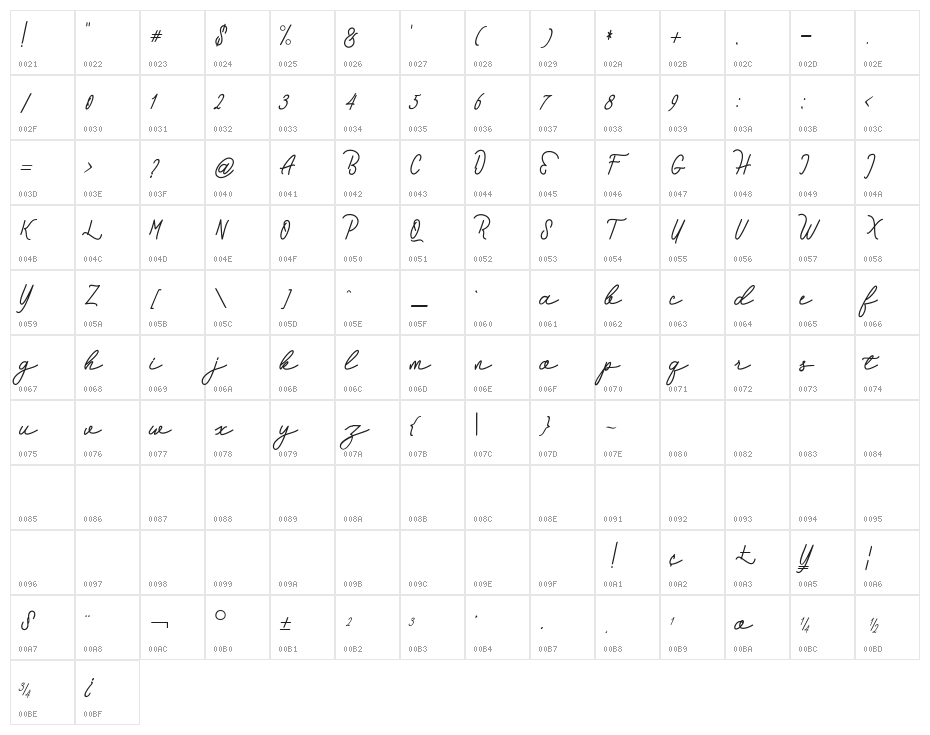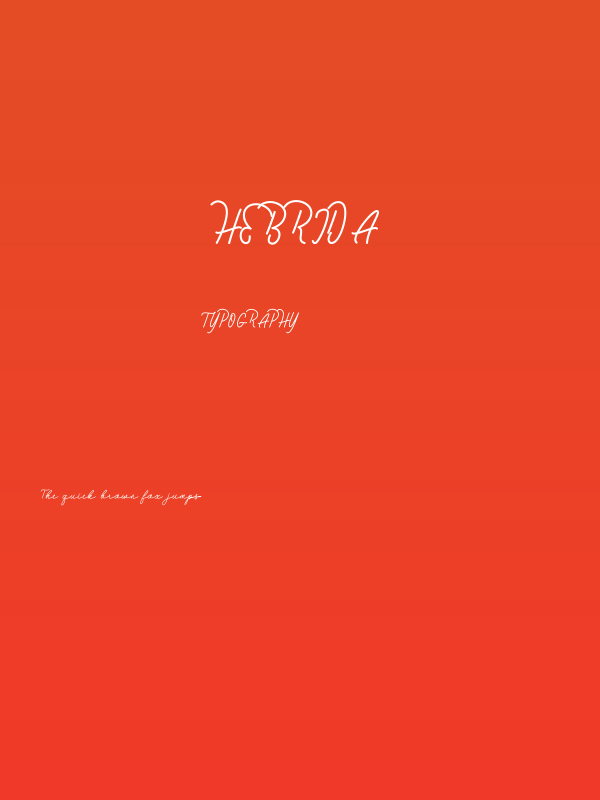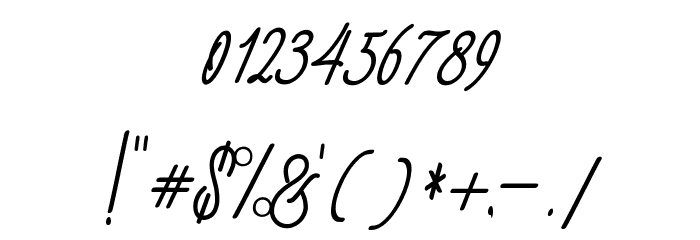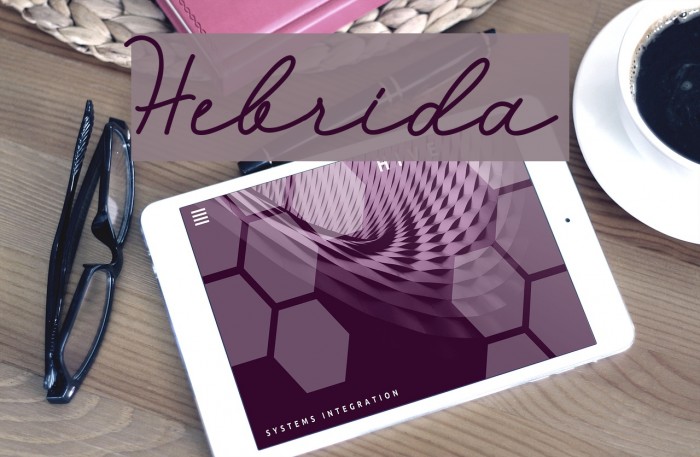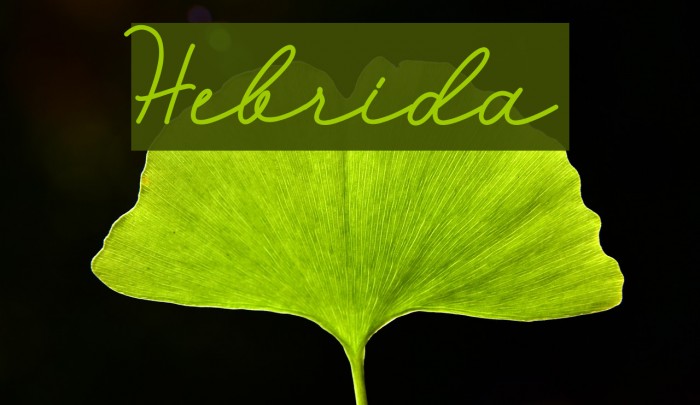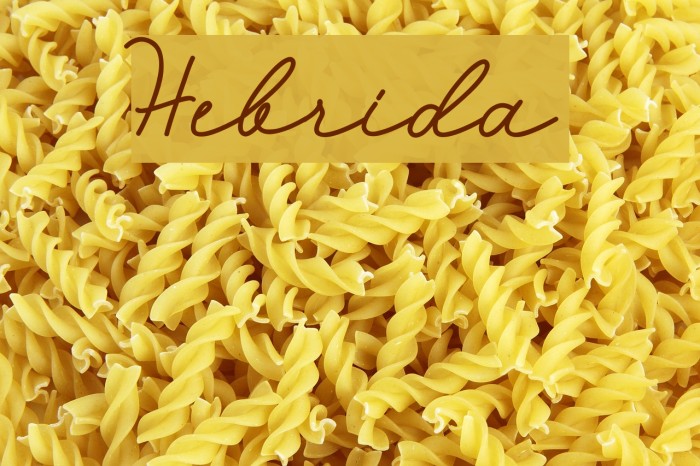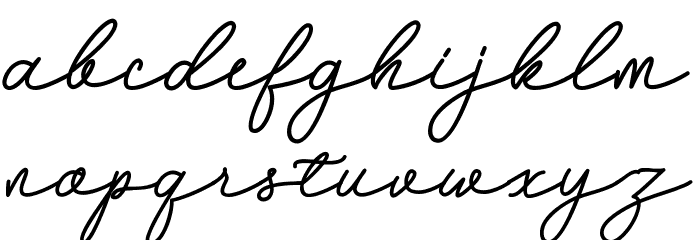
Hebrida Font
Hebrida Description
This font exudes a charming handwritten style, characterized by its fluid and elegant script. The letters are connected, giving a natural flow reminiscent of cursive handwriting. The strokes vary in thickness, adding a dynamic and lively feel to the text. The uppercase letters are slightly more elaborate, while the lowercase letters maintain a consistent, smooth rhythm. The numerals and special characters are crafted with the same attention to detail, ensuring a cohesive look across all elements. This font is perfect for projects that require a personal touch, such as invitations, greeting cards, or branding materials.
Type Design - Muhammad Zaini - fontbundles.net/typedesign
| Proposed Projects | Ideal for wedding invitations, personal branding, greeting cards, and elegant stationery. |